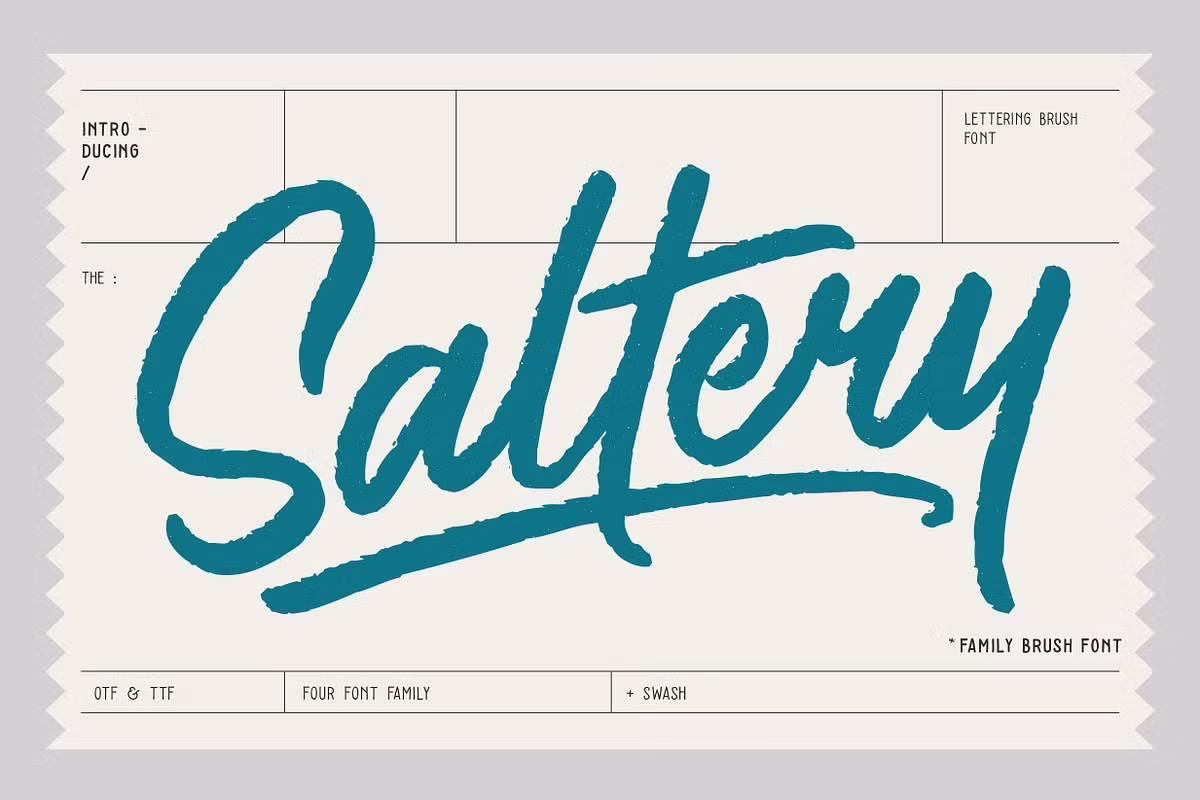
Saltery Brush Font Free Download is a dynamic and expressive brush script typeface designed to give your designs an authentic hand-lettered feel. With its bold, irregular strokes and artistic flair, this font is perfect for creating eye-catching headlines, logos, branding, social media graphics, and more.
The Saltery Brush font combines the raw energy of brush lettering with a modern, fluid style, making it ideal for creative projects that need to convey personality and style. Whether you're designing for a lifestyle brand, an event, or personal creative work, this font brings a unique and playful touch to your typography.
Add a bold and artistic feel to your designs with the energetic Saltery Brush font!